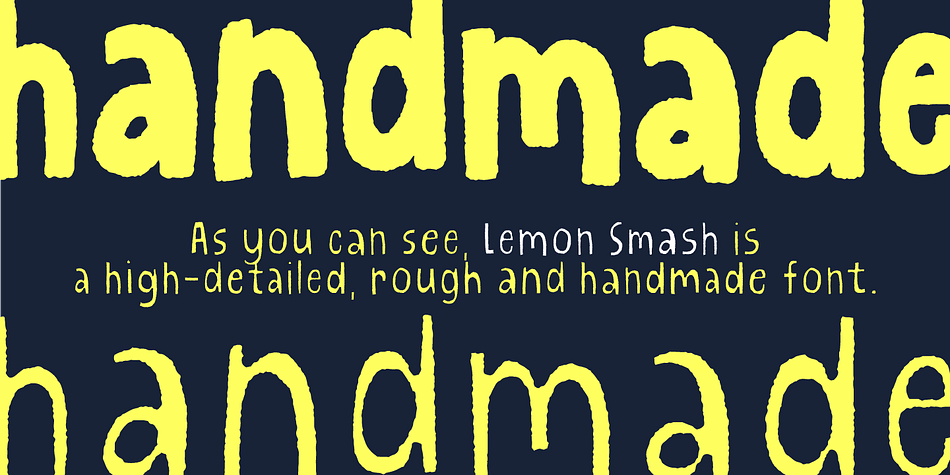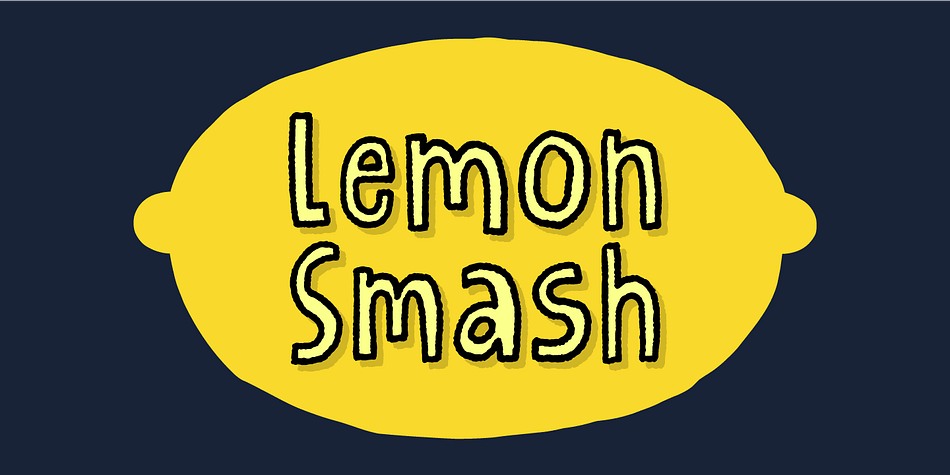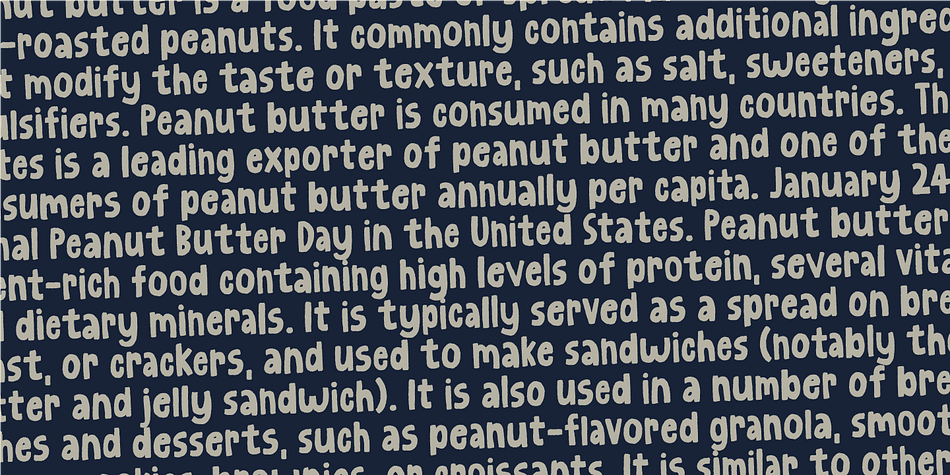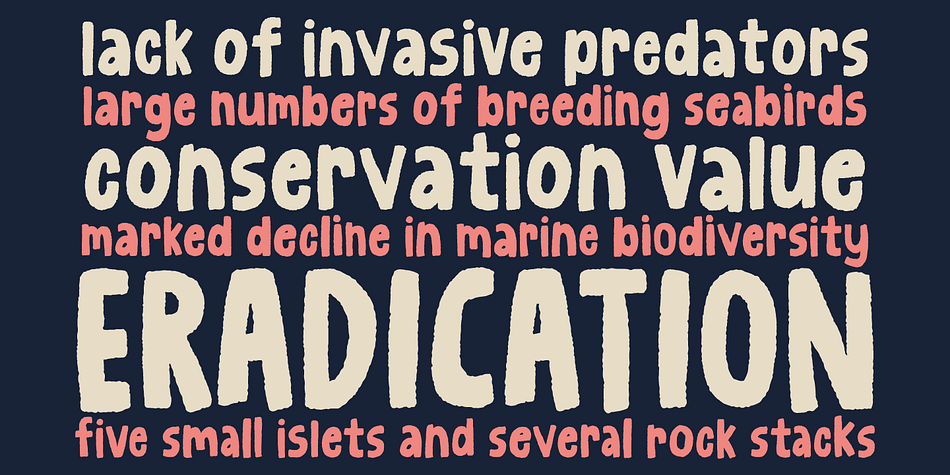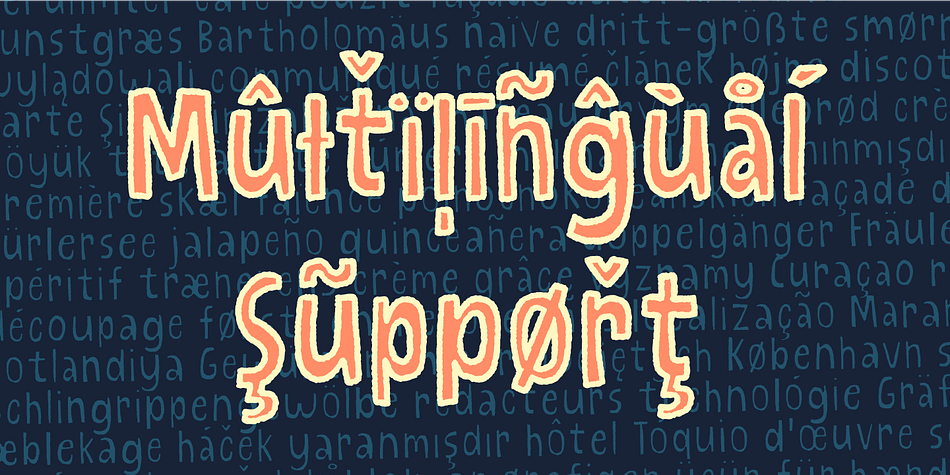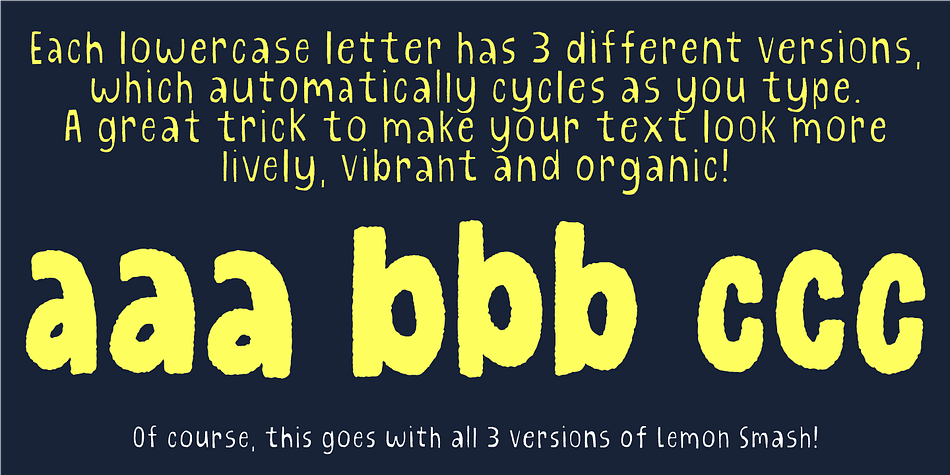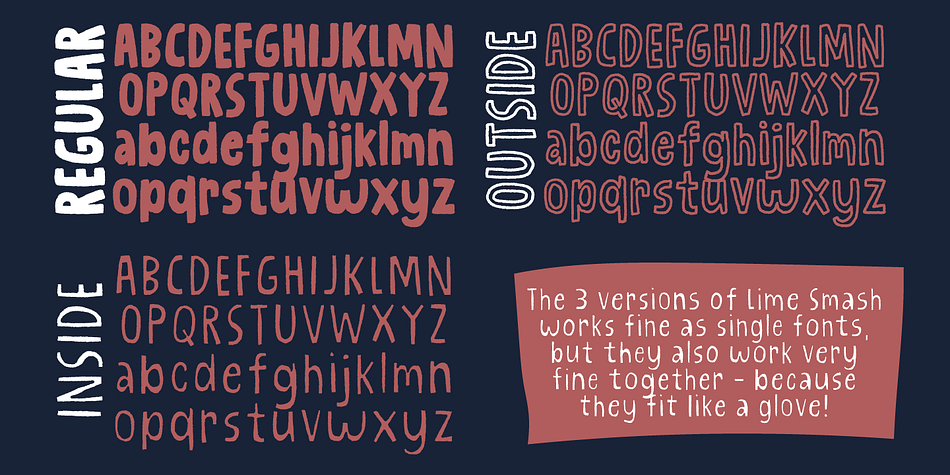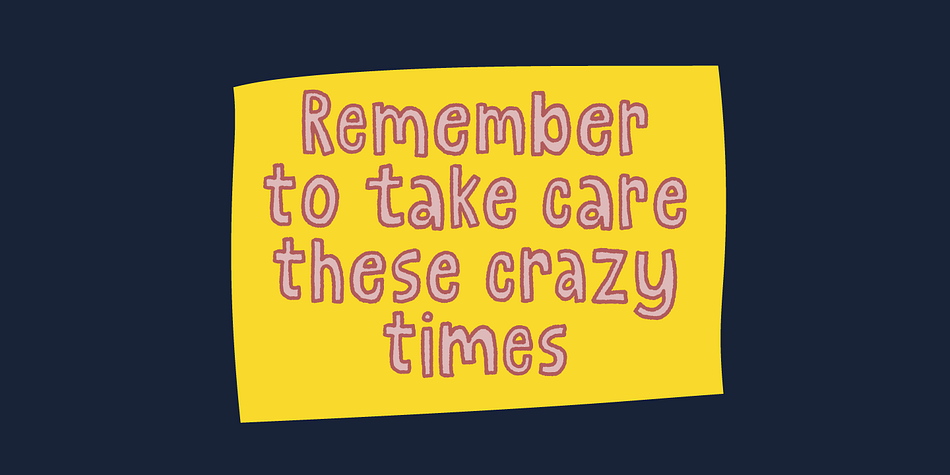
Lemon Smash
Designed by Jakob Fischer, Lemon Smash is a hand display and hand drawn font family. This typeface has three styles and was published by Bogstav.
Lemons here and lemons there - I really love lemons! I use them in foods, deserts and drinks. I even eat them just for the taste of it! And, I name a lot of my fonts something with lemon! This Lemon font has 3 different versions of each lowercase letter and comes in both Regular, Outside and Inside versions - use them as single fonts, or mix them for nice results!